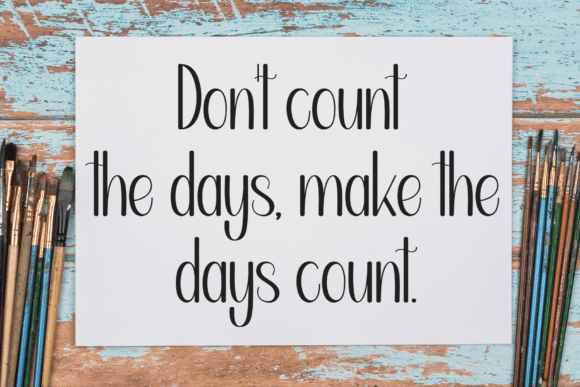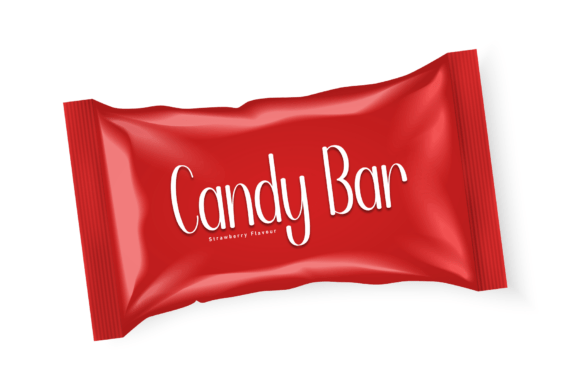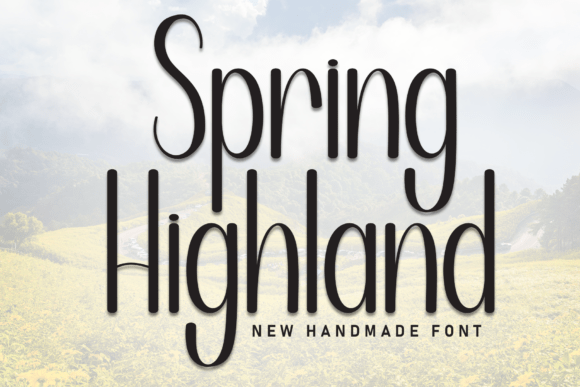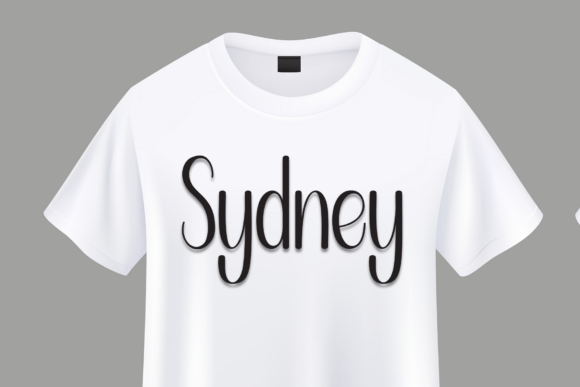
Spring Highland Font
About the Spring Highland Font
Meet Spring Highland Font, a stunning font that brings a touch of elegance and professionalism to any design. Spring Highland is a casual and neat display font that radiates a fresh, friendly vibe. With clean lines and a relaxed structure, it’s perfect for packaging, posters, and social media graphics. The approachable design adds charm and clarity to projects while maintaining a polished appearance.
Spring Highland Font Usage Examples